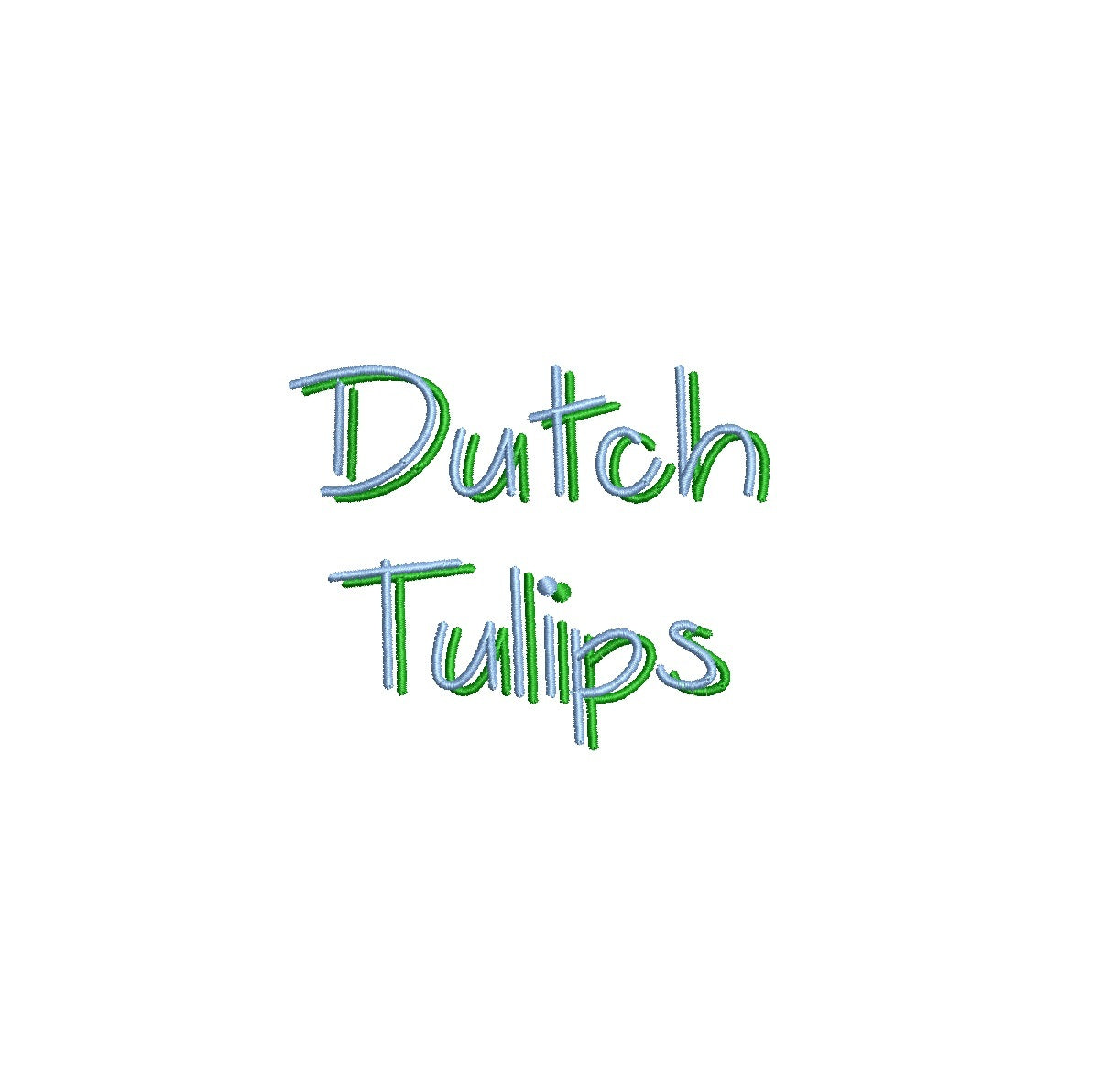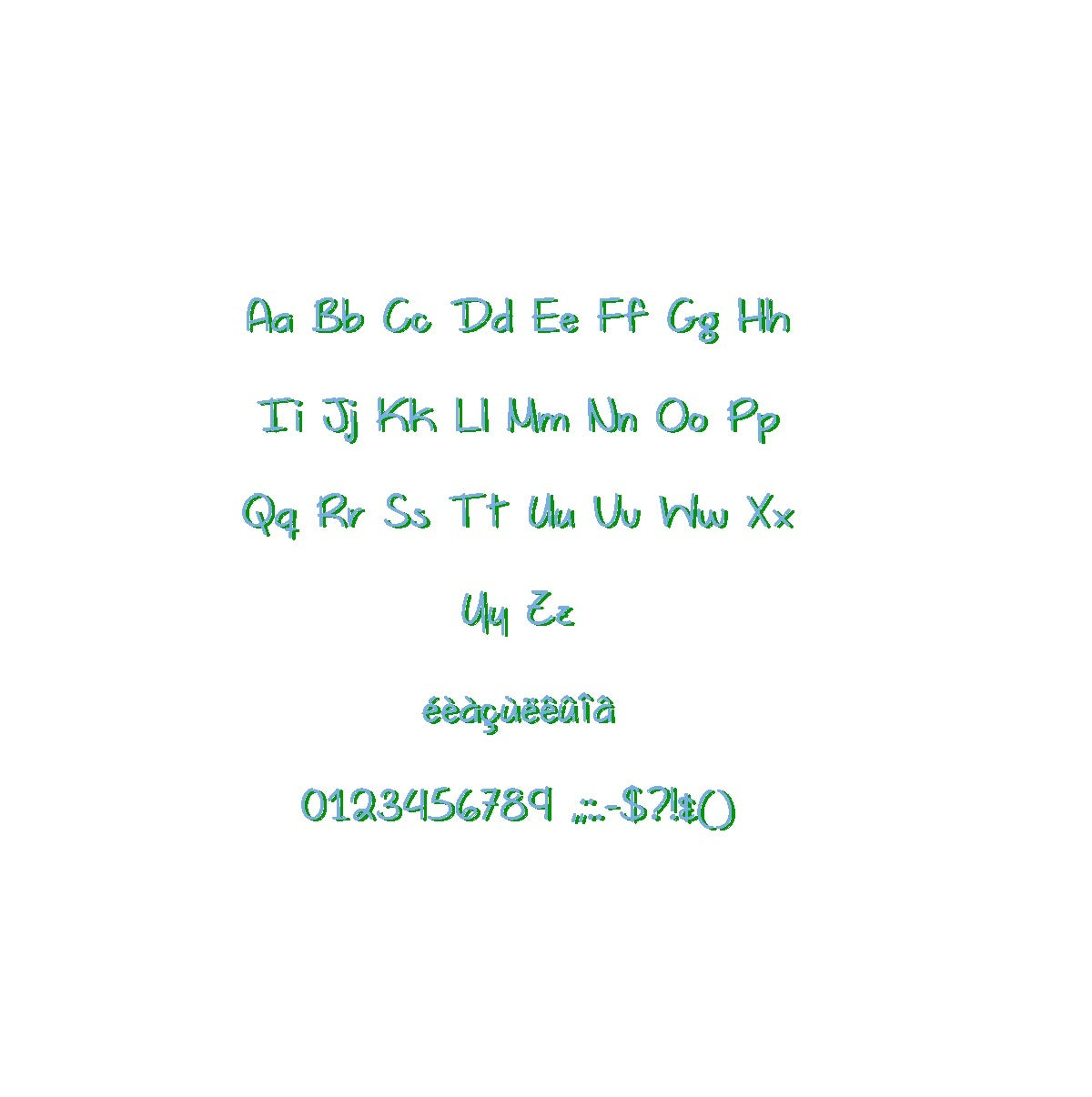
Elevate your embroidery with the exquisite Dutch Tulips Shadow ESA font. Crafted for Wilcom Studio e4.5.6 and Hatch 3 versions and beyond, this font seamlessly merges floral elegance and compatibility. Create captivating designs with its intricate shadow effect, adding depth and beauty to your lettering. Perfect for various applications, from nature-inspired motifs to sophisticated text layouts. Unleash your creativity as Dutch Tulips Shadow ESA font enriches your embroidery. Elevate your designs and make a lasting impression. Choose this font to infuse your creations with a touch of blooming charm, redefining your embroidery artistry with floral sophistication.